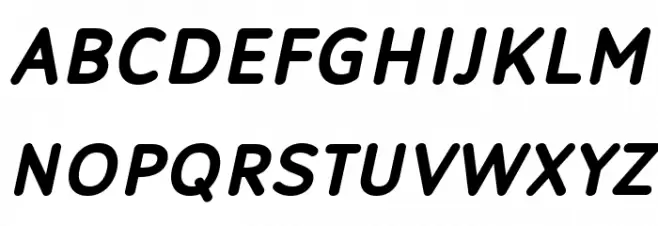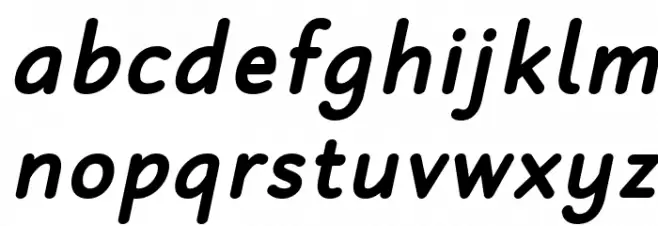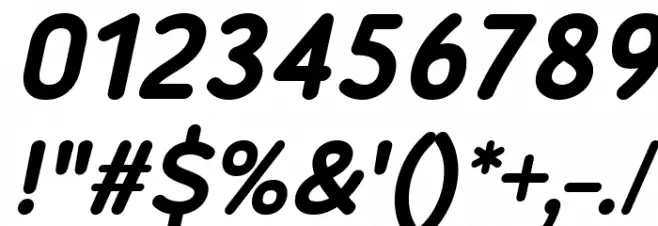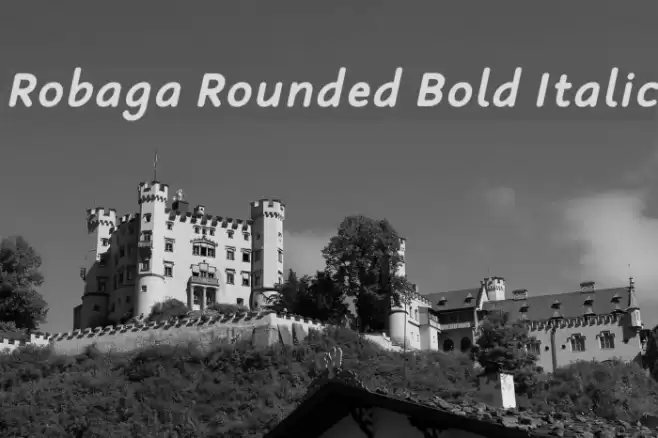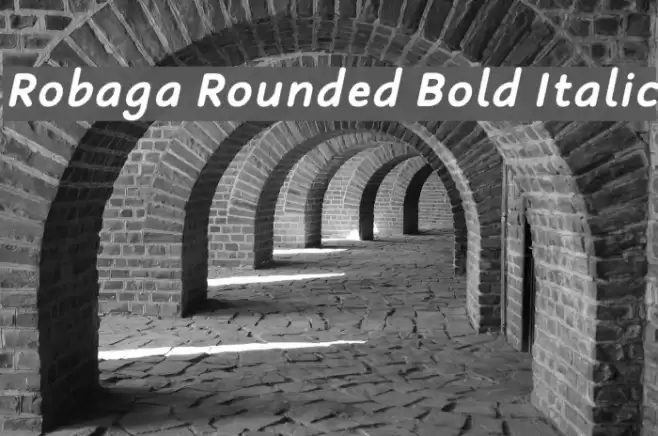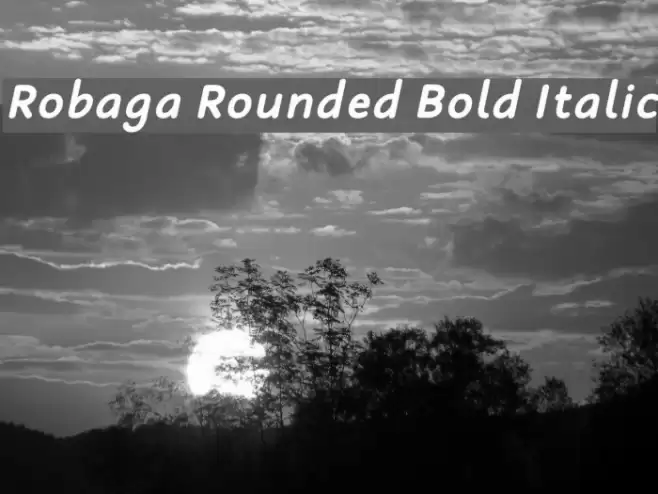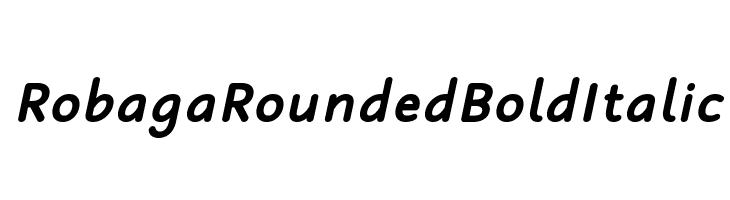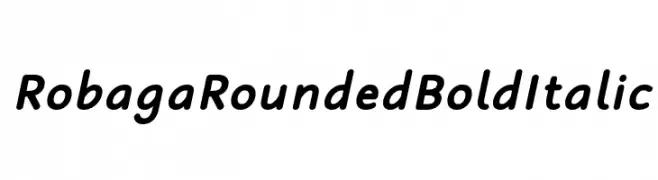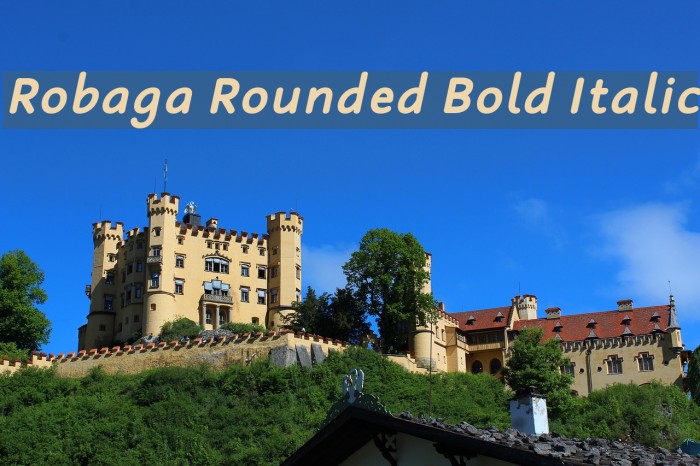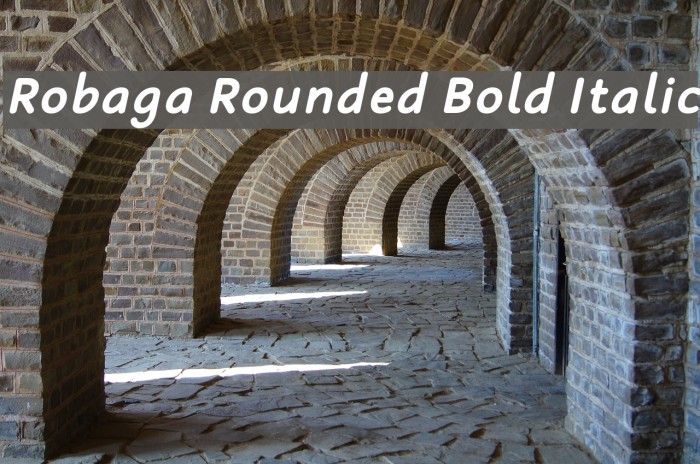
Robaga Rounded Bold Italic
This font features a rounded, bold style with a distinct italic slant, giving it a dynamic and friendly appearance. The characters are well-defined with smooth curves, creating a sense of approachability and warmth. The bold weight ensures strong visibility, making it suitable for attention-grabbing designs. The rounded edges soften the overall look, adding a playful touch while maintaining readability. The italic angle adds a sense of movement and modernity, making it versatile for various creative applications. The font includes a full set of uppercase and lowercase letters, numerals, and a range of punctuation and special characters, ensuring comprehensive usability.
A rounded, bold, italic font with smooth curves and a friendly appearance.
- Proposed Projects: Ideal for branding, advertising, packaging, and digital media where a friendly and modern look is desired.
- Use Case: Headlines, Logos, Branding